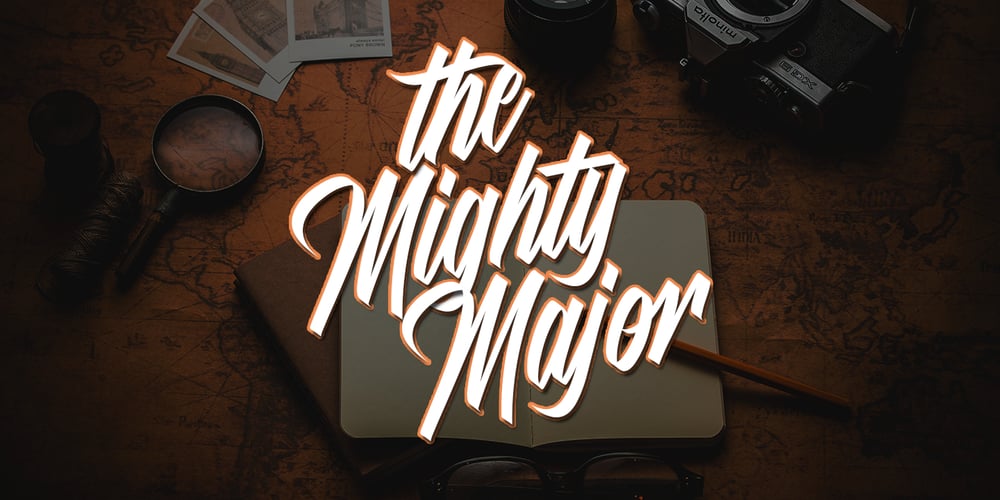
The Mighty Major Font Family was designed by Amar Lettering and published by Just Lett. The Mighty Major contains 1 styles and family package options. The Mighty Major is a new script and is perfect for signatures, posters, fashion, weddings, branding, logos and more. Features: ~ Uppercase ~ lowercase ~ Numeral and Punctuation ~ Multilingual ~ Ligature